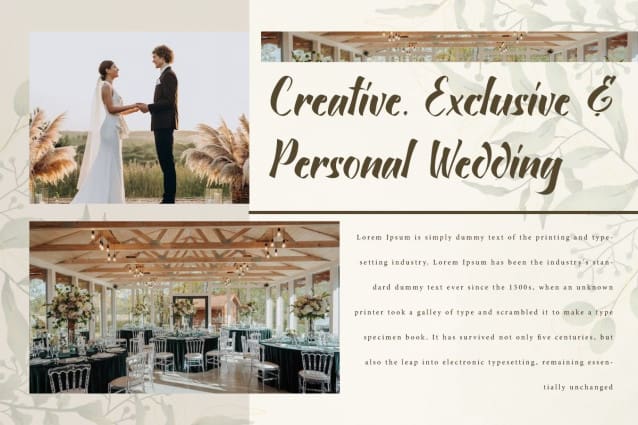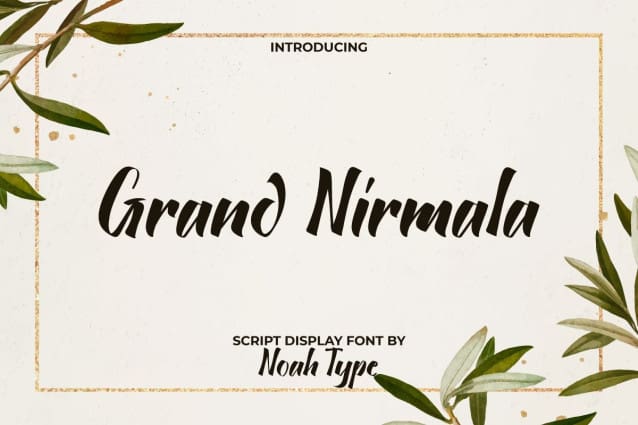
Grand Nirmala Font
Grand Nirmala Font is a beautiful hand calligraphy script font. This font exudes a strong feminine aura and its charm can make any design look stunning. It will be suitable for any industries, such as advertisement, beauty product, event or wedding organizer, café, fashion, florist, photography, printing, publishing, and more!
Grand Nirmala Font includes full set of Uppercase and Lowercase Basic Characters, Numerals, Punctuation, and Symbol. This font has thick and not cursive line so it can be used with other font types, such as brand image, brochure, business card, custom design, invitation, label, menu, poster, product packaging, quote, screen printing, stationery, website, and more!